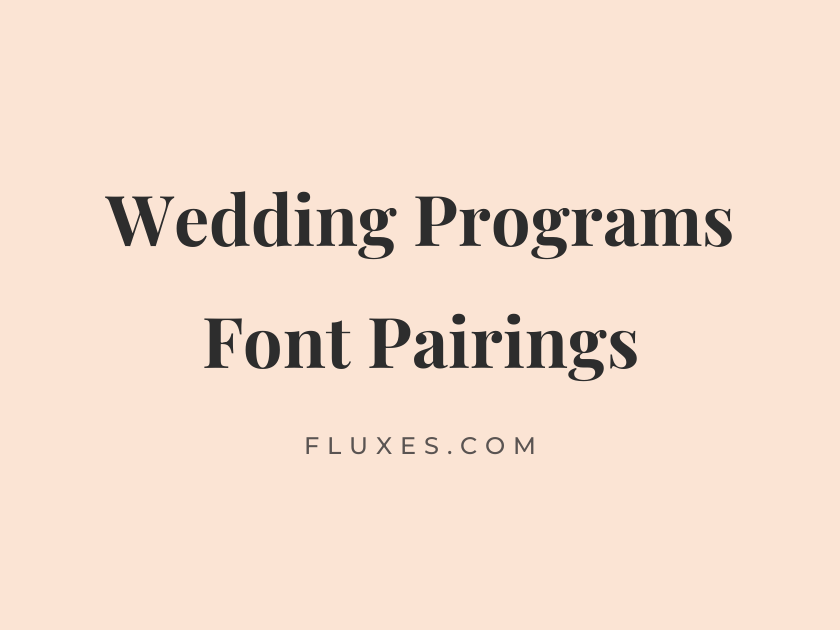
35 Best Font Pairings for Wedding Programs
Wedding programs carry a lot of typographic weight for a single sheet: a couple’s names, a ceremony order, readings, and a thank-you, all needing to feel cohesive and celebratory without becoming hard to read in dim chapel light. The right font pairing balances a expressive heading face with a calm, legible body font, and the right choice shifts with the wedding’s mood, from black-tie cathedral to backyard garden party. What follows is a wide range of Google Fonts pairings suited to different styles of ceremony stationery.
Playfair Display + EB Garamond
Playfair Display’s sharp contrast and tall capitals give programs an editorial elegance, while EB Garamond’s warm, humanist serifs keep the order of service easy to read. This is a dependable pairing for formal, traditional weddings that still want a literary feel.
Cormorant Garamond + Lora
Both fonts share old-style serif proportions, so the heading and body feel like relatives rather than strangers. Cormorant Garamond adds delicacy at large sizes, and Lora carries the paragraph text without fatigue.
Great Vibes + Montserrat
A flowing script against a geometric sans is the classic wedding-invitation contrast, and it works just as well on a program cover. Great Vibes signals romance while Montserrat keeps the schedule of events crisp and modern.
Alex Brush + Josefin Sans
Alex Brush has a looser, more casual brushstroke than many wedding scripts, which suits an outdoor or garden ceremony. Josefin Sans, with its tall x-height and vintage geometric feel, keeps the pairing light rather than fussy.
Parisienne + Raleway
Parisienne’s rounded, romantic letterforms need a plain partner, and Raleway’s thin, elegant sans does exactly that without competing for attention. This combination reads as soft and modern at once, good for spring and summer weddings.
Pinyon Script + Crimson Text
Pinyon Script’s fine, calligraphic strokes suit engraved-style stationery, and Crimson Text was drawn for long-form reading, so it handles readings and program notes gracefully. Together they suit a formal, old-world wedding aesthetic.
Tangerine + Libre Baskerville
Tangerine is one of the most delicate scripts on Google Fonts, so it needs to be set large, as a title rather than running text. Libre Baskerville’s sturdy, book-like serifs ground it and keep the rest of the program legible.
Allura + Quattrocento
Allura’s confident loops pair naturally with Quattrocento’s warm, slightly old-fashioned serif, giving the program a sense of tradition without feeling stiff. It suits a couple who wants romance with a bit of gravity.
Sacramento + Nunito Sans
Sacramento is a slim monoline script that reads as playful rather than ornate, which pairs well with Nunito Sans’s soft, rounded letterforms. This is a relaxed choice for casual or destination weddings.
Dancing Script + PT Serif
Dancing Script is friendly and widely recognized, making it an easy, low-risk heading choice, and PT Serif’s practical, newspaper-bred letterforms keep long passages of gratitude and program notes comfortable to read.
Italiana + Karla
Italiana’s narrow, high-contrast capitals feel like fashion typography, so it suits a minimalist, black-tie program. Karla’s understated grotesque keeps the supporting text out of the way.
Marcellus + Jost
Marcellus has the restrained authority of carved stone lettering, and Jost’s geometric simplicity, close in spirit to Futura, gives it a clean modern counterpart. The pairing suits couples aiming for quiet luxury.
Prata + Work Sans
Prata’s fine serifs and tall proportions give programs a boutique, editorial feel, and Work Sans, built for interface and print alike, keeps schedules and names easy to scan.
Keep body copy at a plain, high-legibility font regardless of how ornate the heading script is; guests need to follow the order of service quickly.
Limit a program to one heading font and one body font, repeated consistently for names, sections, and thank-you notes, so the piece feels designed rather than assembled.
Test scripts at the actual print size before finalizing; some delicate Google Fonts scripts lose detail when printed small on textured paper.